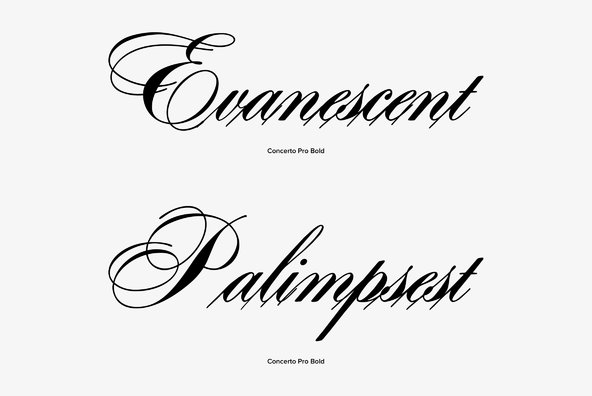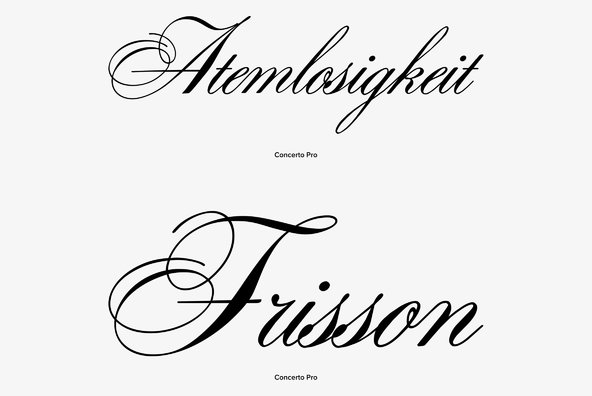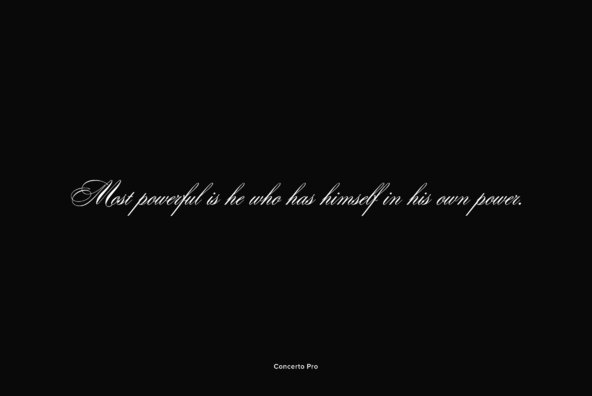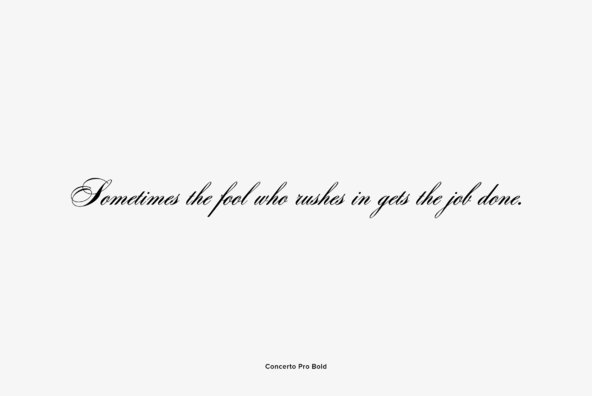
Concerto Pro
profonts Concerto and profonts Sonata are closely related to each other. In fact, the only difference between the two related fonts is in the upper case characters. Concerto's upper cases are more complex, swashier than those in Sonata. One is a perfect complement to the other, and that is why they are offered together at special rate. Both fonts contain about 370 glyphs covering the complete Latin set for Western and Eastern Europe.